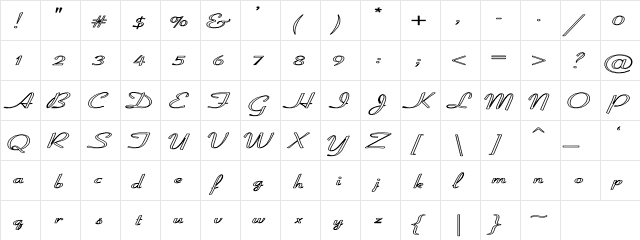
Coronet-SemiBold-Italic HE Regular
Design Context for Coronet-SemiBold-Italic HE Typeface
Coronet-SemiBold-Italic HE takes a measured approach to typography — its balanced proportions and neutral character make it a reliable workhorse for both digital and print work. The slanted form adds forward momentum and visual energy. The heavy weight commands attention and anchors typographic hierarchies.
Pro Tip: Use Coronet-SemiBold-Italic HE for emphasis, pull quotes, and subheadings where its slanted energy can add rhythm to the layout.